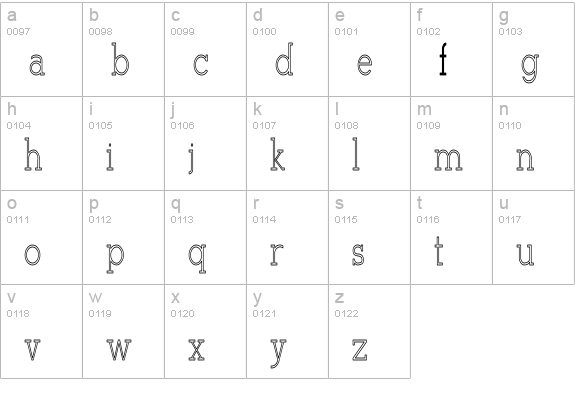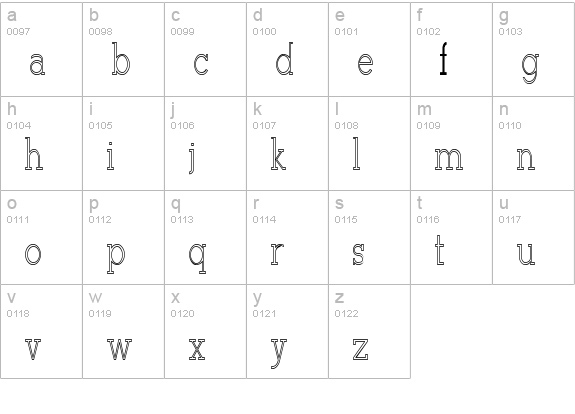
StymieHC Font Details
StymieHC is a modern and stylish font that exudes sophistication and elegance. With its clean lines and sleek curves, this font is perfect for a wide range of design projects, from branding to editorial design. The StymieHC font is versatile and can be used for both headers and body text, making it a great choice for any project. The best part? StymieHC is available for free download at FontsMarket.com. This means you can easily access this beautiful font and use it in your projects without any cost. Don't miss out on the opportunity to enhance your designs with the timeless elegance of StymieHC font. Download it today and elevate your design game!